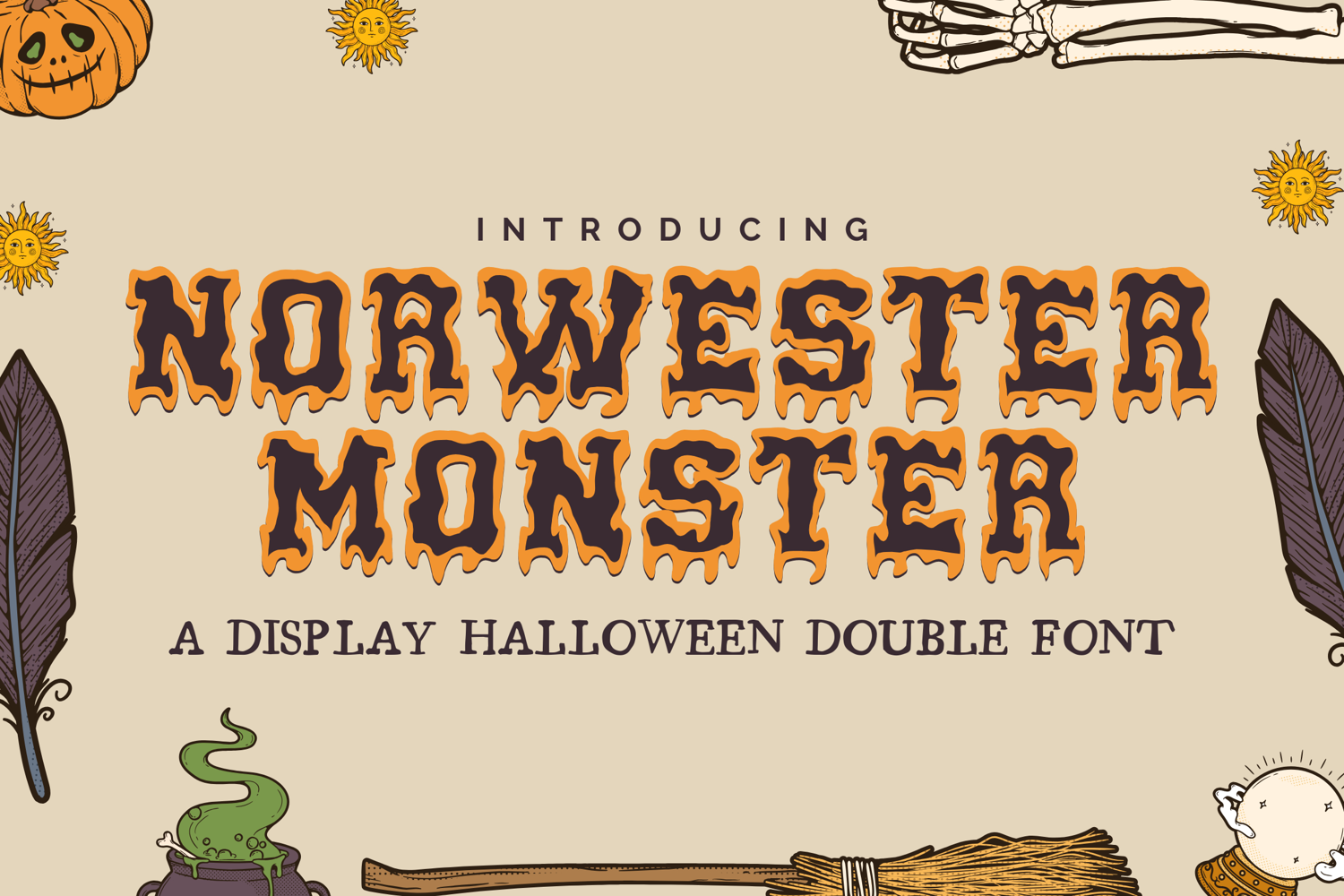
Norwester Monster - Font Duo Regular & Outline Dripping
Norwester Monster Outline
Norwester Monster
Get bold. Get spooky. Introducing Norwester Monster, a Font Duo that combines the iconic strength of varsity block lettering with a creepy dripping effect — perfect for Halloween, horror themes, and bold seasonal branding.
• Regular – solid, dripping block letters for strong, chilling impact
• Outline – bold hollow characters with dripping accents for layered designs
The duo gives you flexibility to mix, match, and layer the fonts for dynamic poster titles, team logos, YouTube covers, and apparel designs. Whether you’re creating spooky sports jerseys or horror-themed event flyers, Norwester Monster delivers the edge you need.
• Font Duo: Regular Dripping + Outline Dripping
• Condensed All-Caps Varsity Style for bold readability
• Spooky Drip Effect for Halloween and horror vibes
• Halloween posters & party invitations
• Sports jerseys with a spooky twist
• Horror movie titles & YouTube thumbnails
• Seasonal branding, stickers & merchandise
• Haunted house flyers & event signage